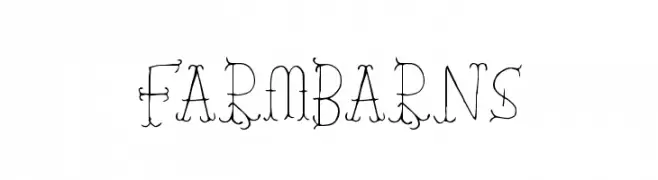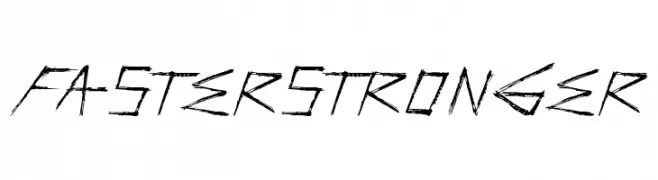
• FarmBarns
A whimsical and decorative font with intricate, curling serifs and elegant curves.
• FastBrush
A dynamic, brush-style font with an expressive, hand-painted look.
• FasterStronger
A dynamic, edgy font with sharp, angular strokes and a gritty, rebellious feel.
• Fat Chicken
( Captain Jack Harkness - Barbara Lambert )
A bold, playful font with a hand-drawn, whimsical style.
• Fat Lady by Marta van Eck
A bold, playful font with thick, rounded characters.
• Fatfont
A bold, modern font with thick strokes and a geometric influence, ideal for impactful headlines.
• Father's Entreaty - Personal Us
A playful, casual handwritten font with smooth, flowing letterforms.
• FaultLineDT
A dynamic, edgy font with irregular, jagged strokes and a hand-drawn appearance.
A bold, geometric font with a futuristic and industrial design.